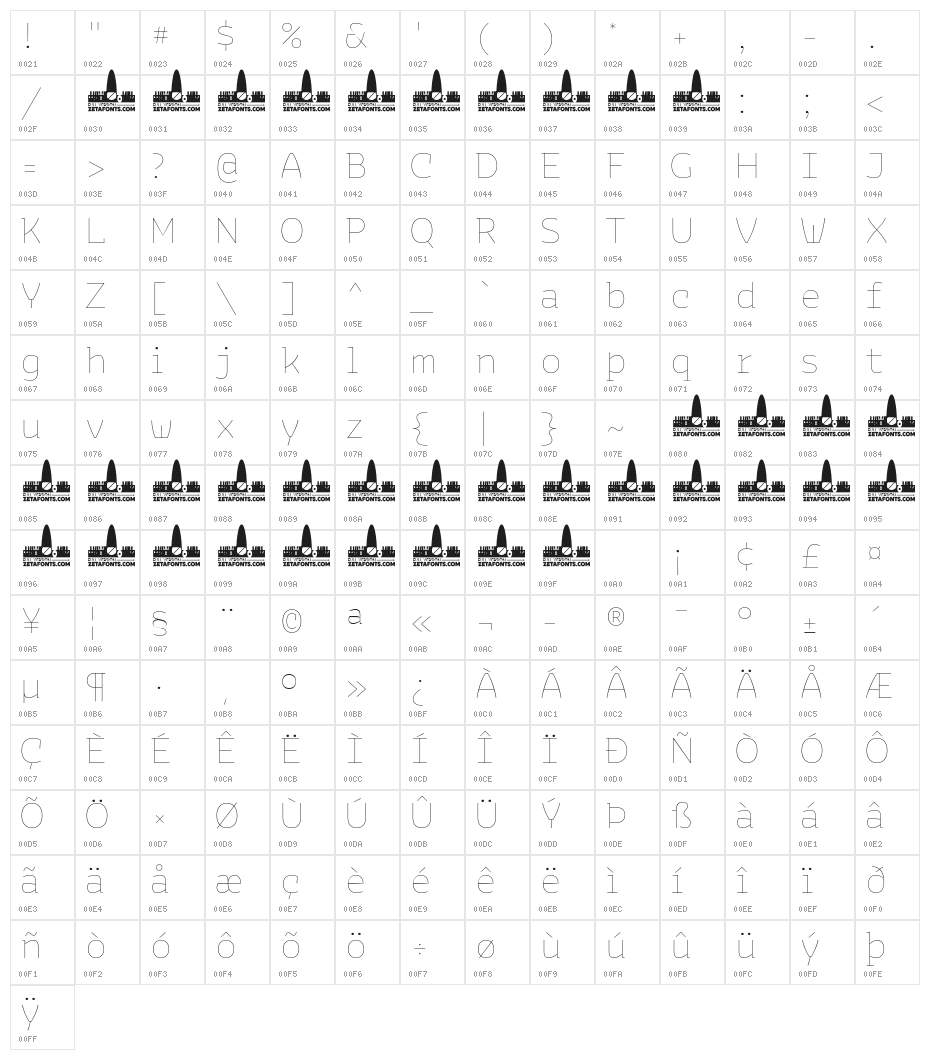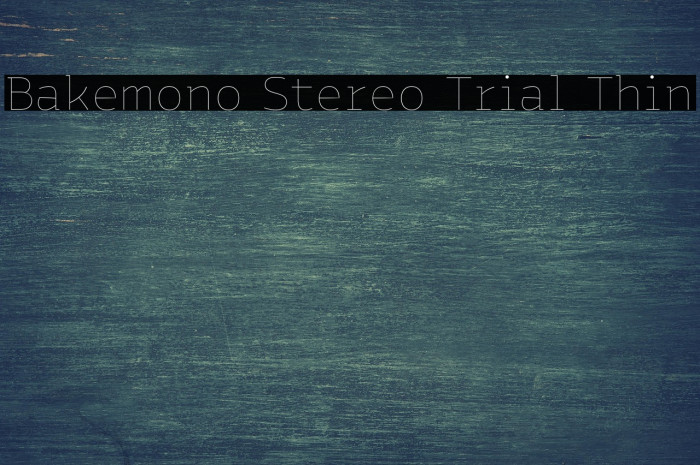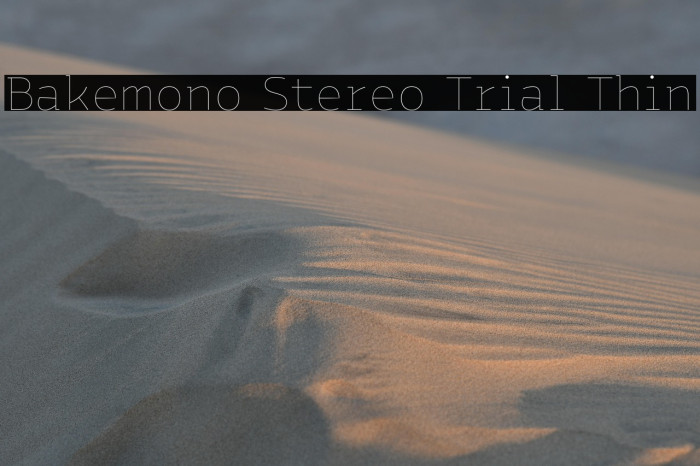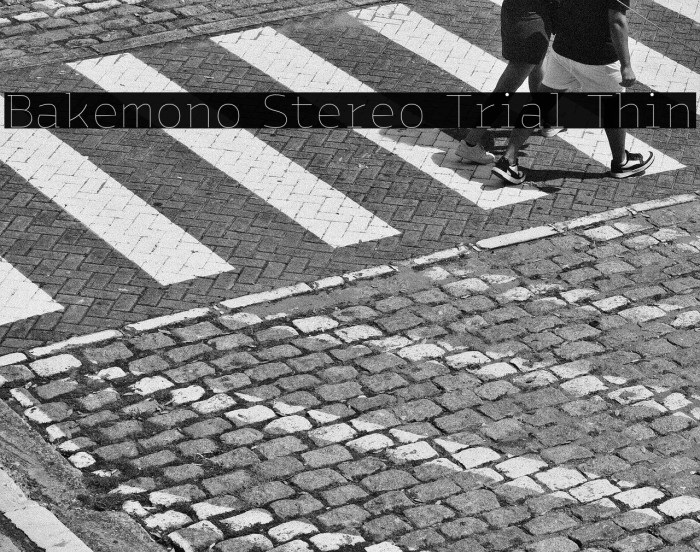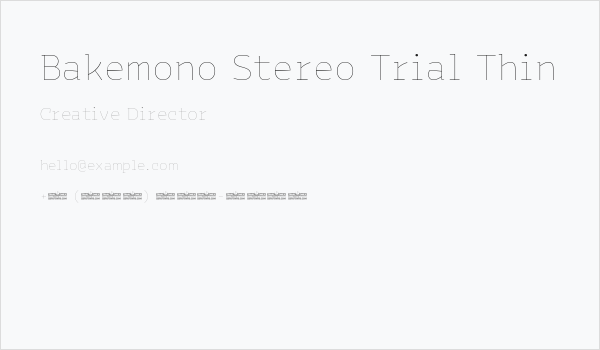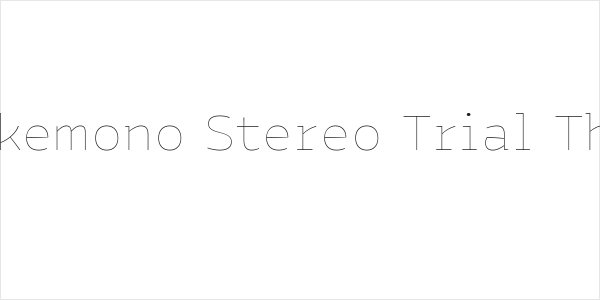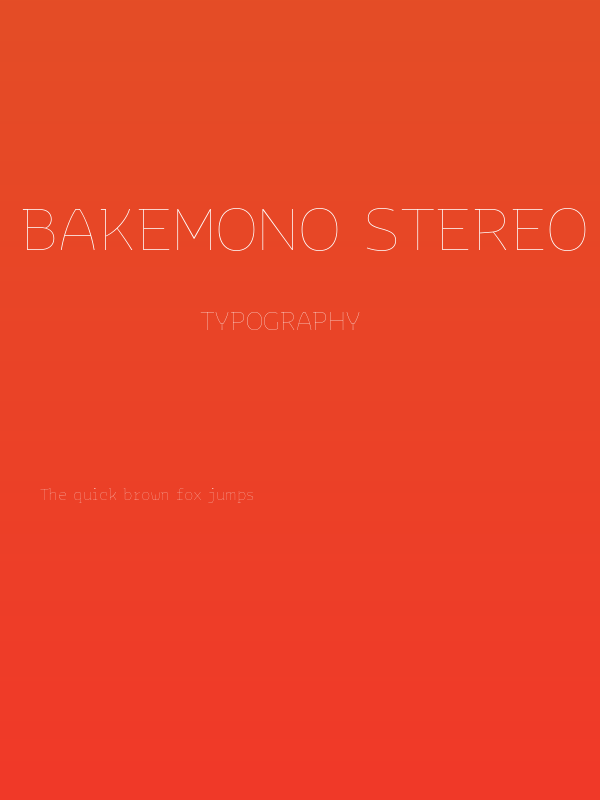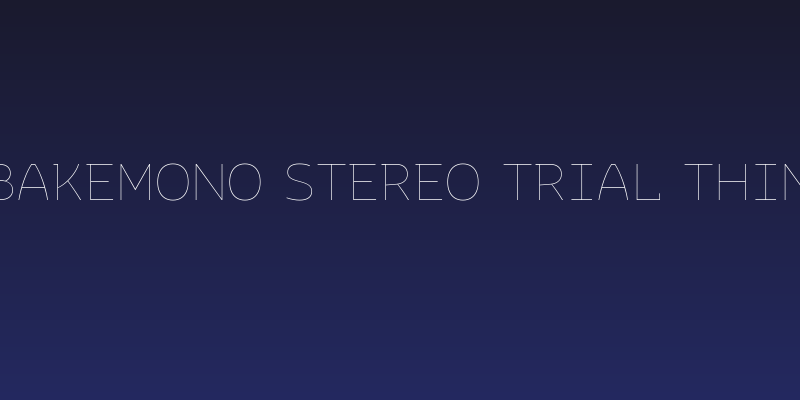
Bakemono Stereo Trial Thin Font
Bakemono Stereo Trial Thin Description
This font features a minimalist and geometric design, characterized by thin, consistent lines and a modern aesthetic. The uppercase and lowercase letters maintain a uniform stroke width, contributing to a clean and uncluttered appearance. The characters exhibit a slight angularity, adding a subtle edge to the overall look. The numerals and special characters are crafted with the same precision, ensuring a cohesive style throughout. This font's simplicity and clarity make it suitable for a variety of applications where readability and a contemporary feel are desired.
| Proposed Projects | Ideal for modern branding, minimalist posters, tech-related designs, and clean editorial layouts. |